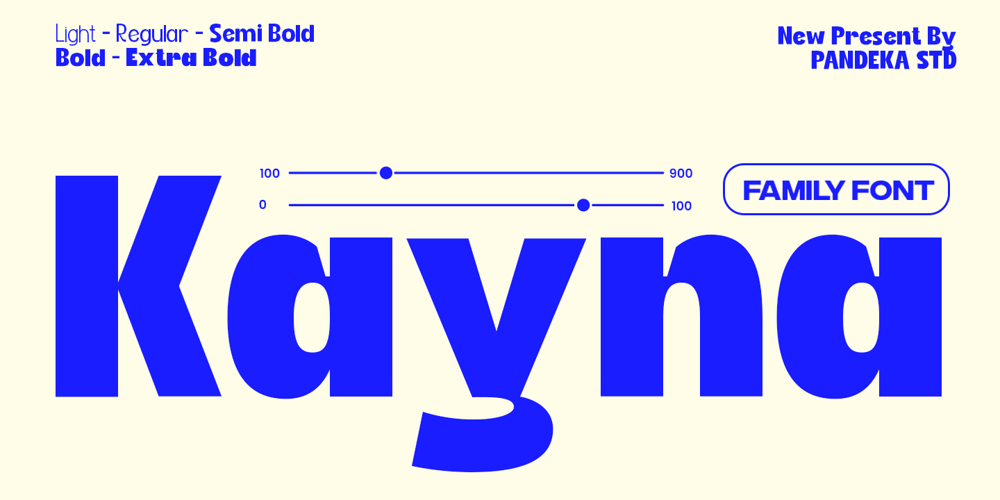
Kayna Font Family was designed by Sagara Nararya and published by Pandeka Studio. Kayna contains 5 styles and family package options. Introducing Kayna – a versatile sans-serif font family by Pandeka Studio!Kayna is a clean and modern sans-serif font family that comes in 5 distinct variations: Light, Regular, Semi Bold, Bold, and Extra Bold. Each weight is designed to provide flexibility and legibility, making Kayna perfect for a wide range of design projects.Kayna is sleek, stylish, and incredibly adaptable. Whether you need a font for headlines, body text, or anything in between, Kayna delivers with its contemporary aesthetic and high readability. Its smooth curves and balanced proportions make it a great choice for both digital and print applications.Features: Kayna Main Files 5 Font Weights (Light, Regular, Semi Bold, Bold, Extra Bold) Instructions (Access special characters in all apps, including Cricut Design) Accessible in Adobe Illustrator, Adobe Photoshop, Microsoft Word, and even Canva! PUA Encoded Characters: Fully accessible without additional design software Language Support: Danish, English, Estonian, Filipino, Finnish, French, Friulian, Galician, German, Gusii, Indonesian, Irish, Italian, Luxembourgish, Norwegian Bokmål, Norwegian Nynorsk, Nyankole, Oromo, Portuguese, Romansh, Rombo, Spanish, Swedish, Swiss-German, Uzbek (Latin) Feel free to follow, like, and share. Thanks so much for checking out my shop!Have a great day!Pandeka Studio